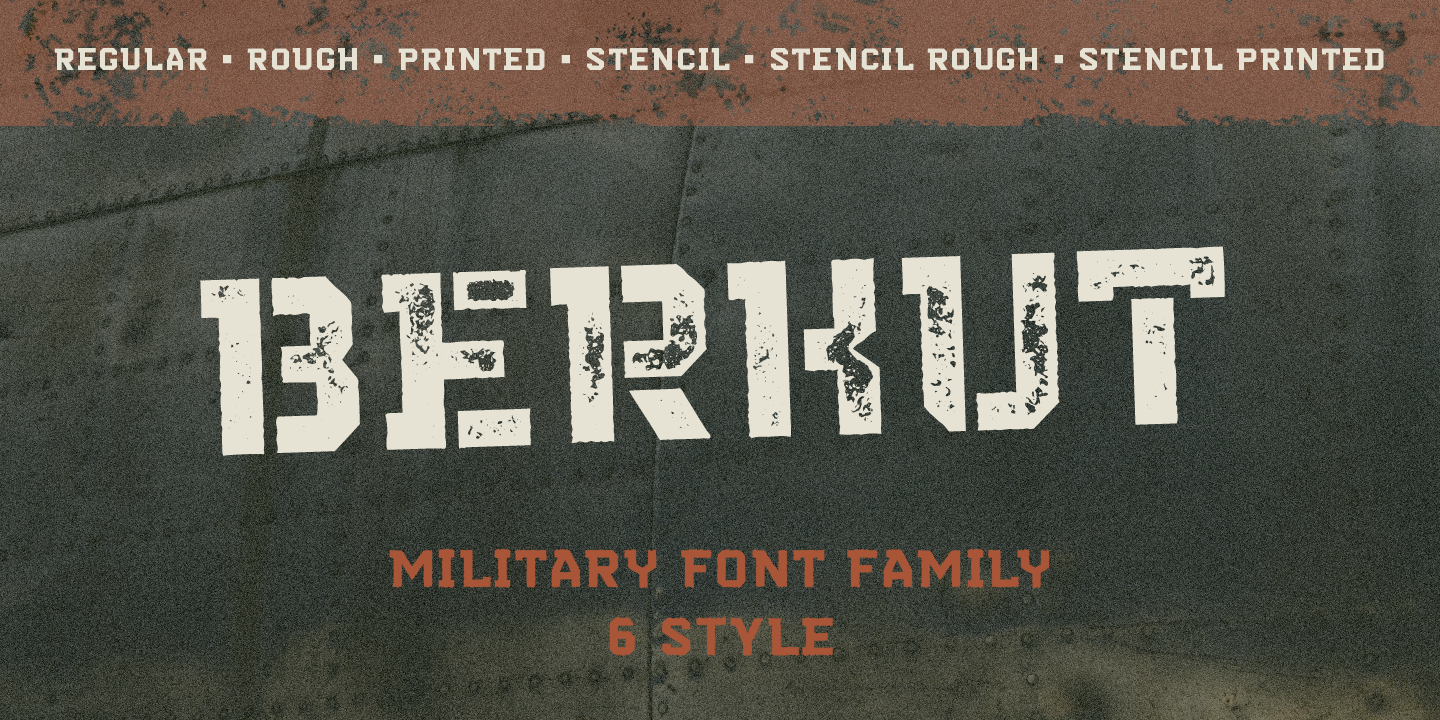
Berkut Font is perfect for bold branding projects, military-inspired designs, action movie posters, gaming interfaces, sports team logos, adventure gear packaging, tactical equipment branding, outdoor apparel labels, strong corporate identities, and powerful headline applications that demand attention.
What makes Berkut Font exciting is its commanding presence and robust character that conveys strength, power, and determination. This impressive typeface draws inspiration from military precision and industrial design, creating letterforms that are both bold and highly functional. The font's strong geometric foundation and sharp details make it an ideal choice for projects requiring authority and impact.
The Berkut Font family includes regular, condensed, and extended widths, along with multiple weight variations from medium to ultra-bold. Special stencil versions and tactical-inspired alternates provide additional design options, while comprehensive punctuation and symbol sets ensure complete typographic coverage for professional applications.
Berkut Font Free Download delivers exceptional performance in high-impact design scenarios where readability and visual strength are paramount. Its carefully engineered letterforms maintain clarity even at small sizes while providing maximum impact in large display applications. The font's versatile nature makes it suitable for both digital interfaces and print materials.
Harness the commanding power of Berkut Font in your next project and create designs that make bold statements with uncompromising strength and professional authority that captures attention instantly.